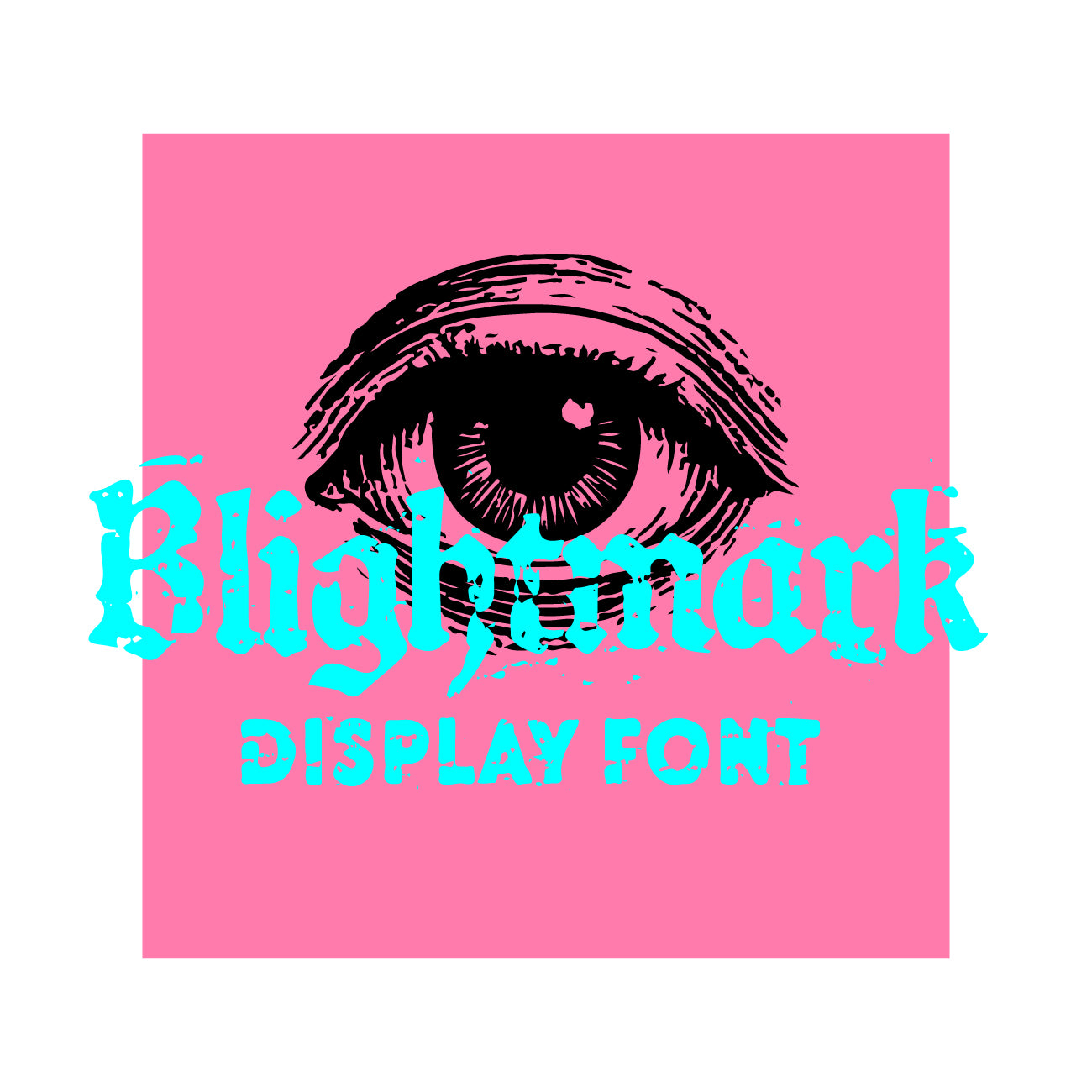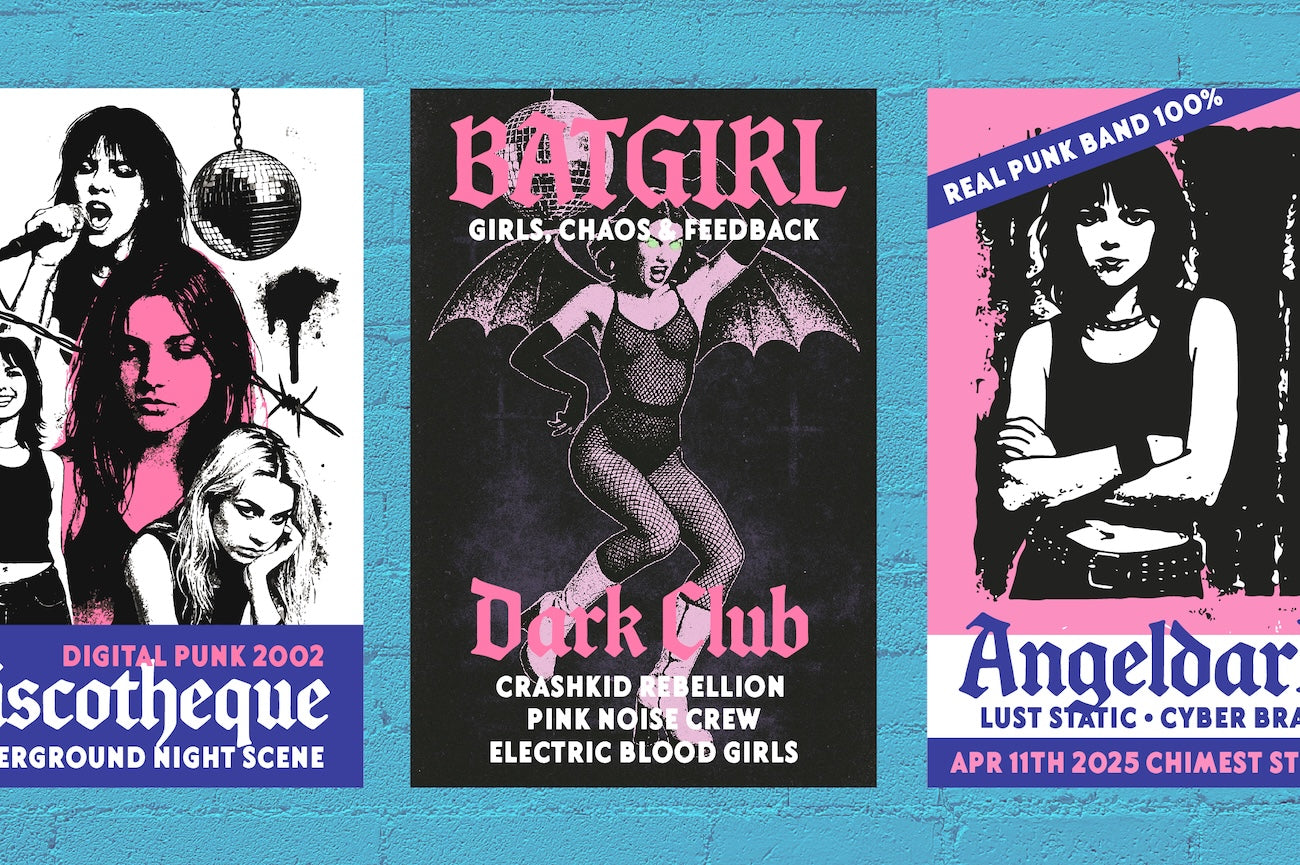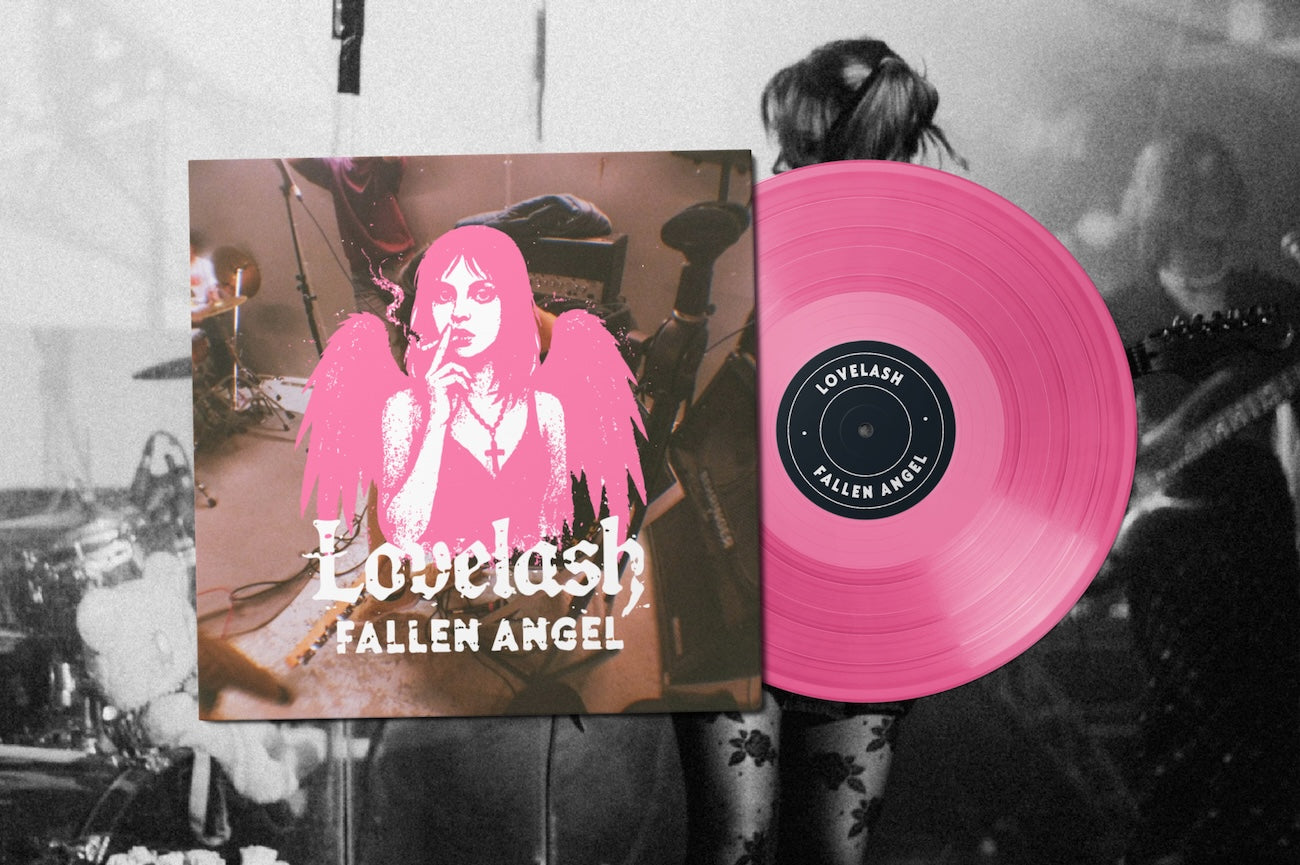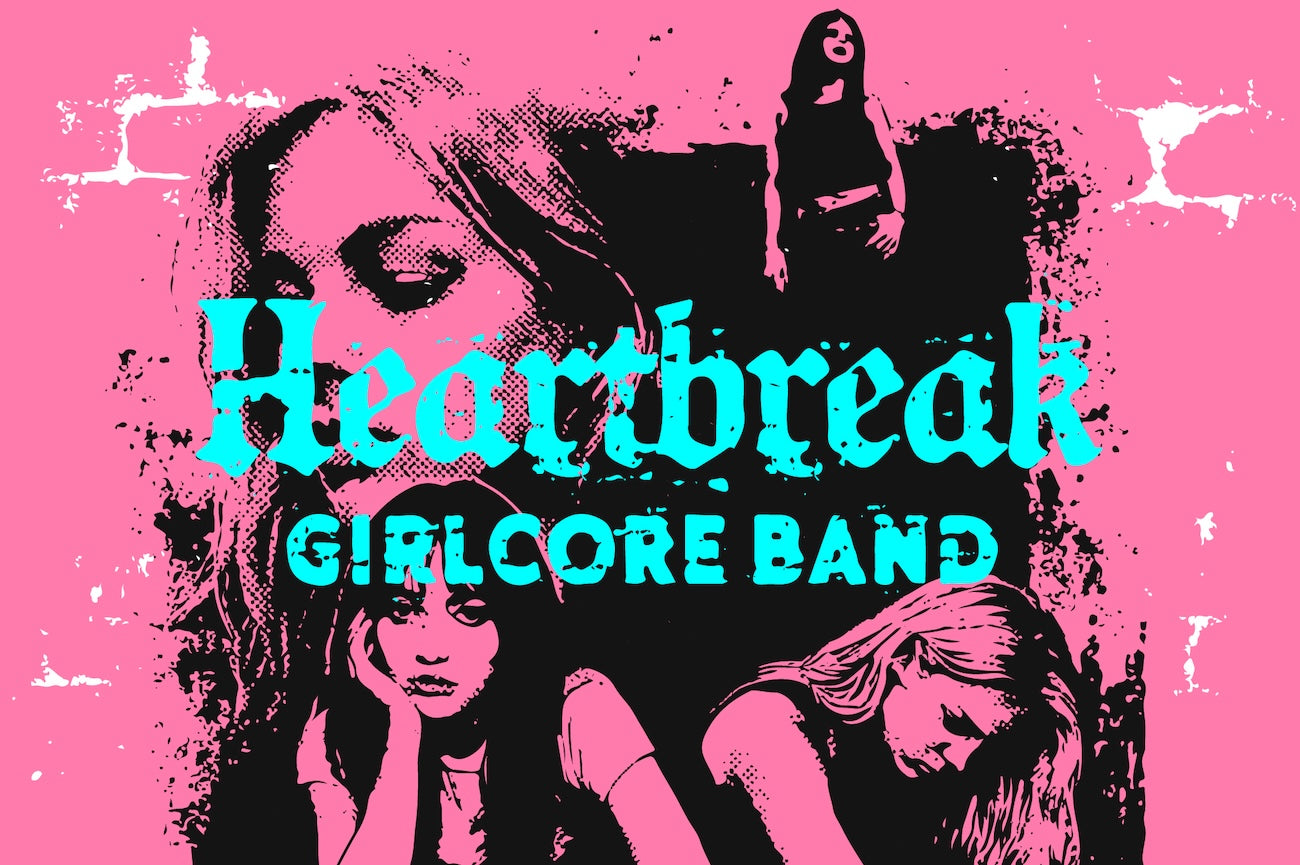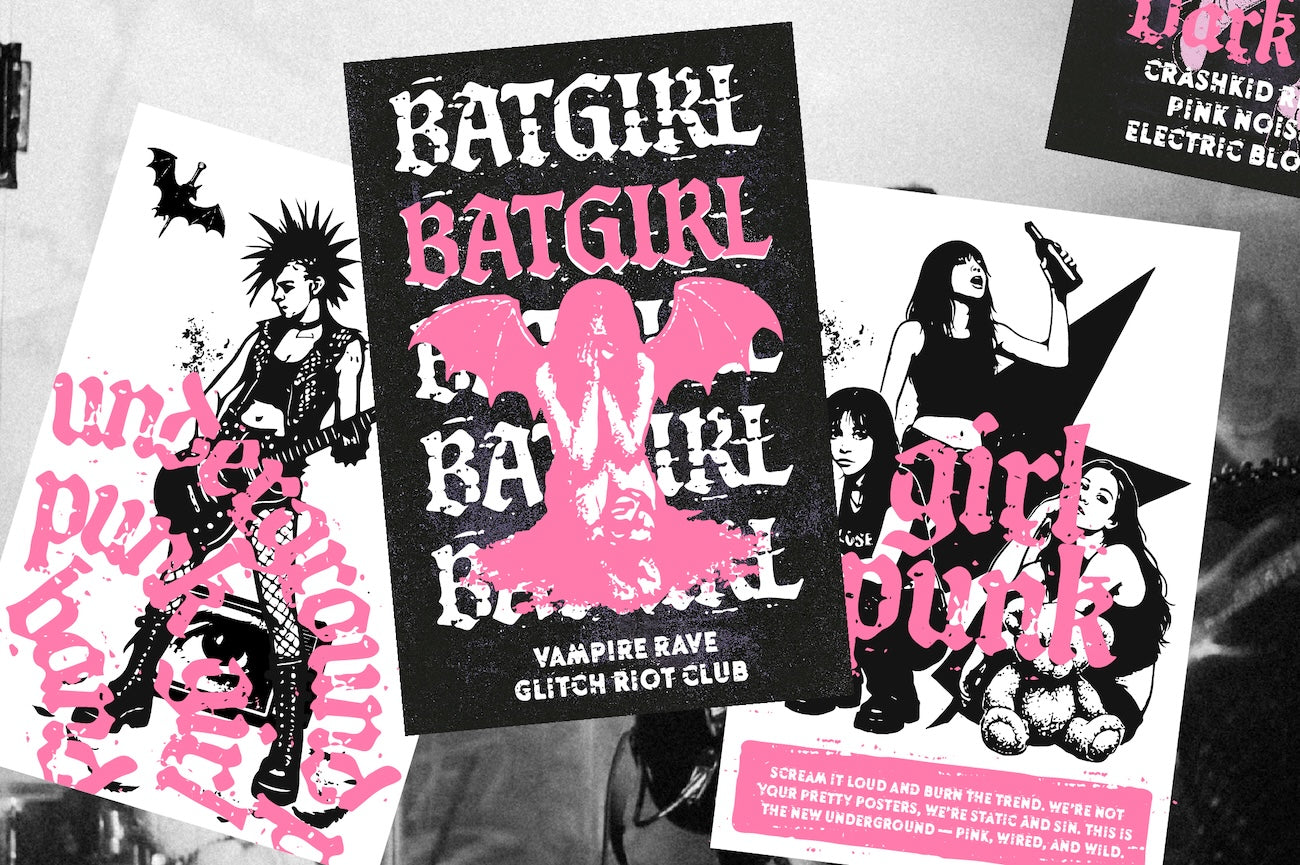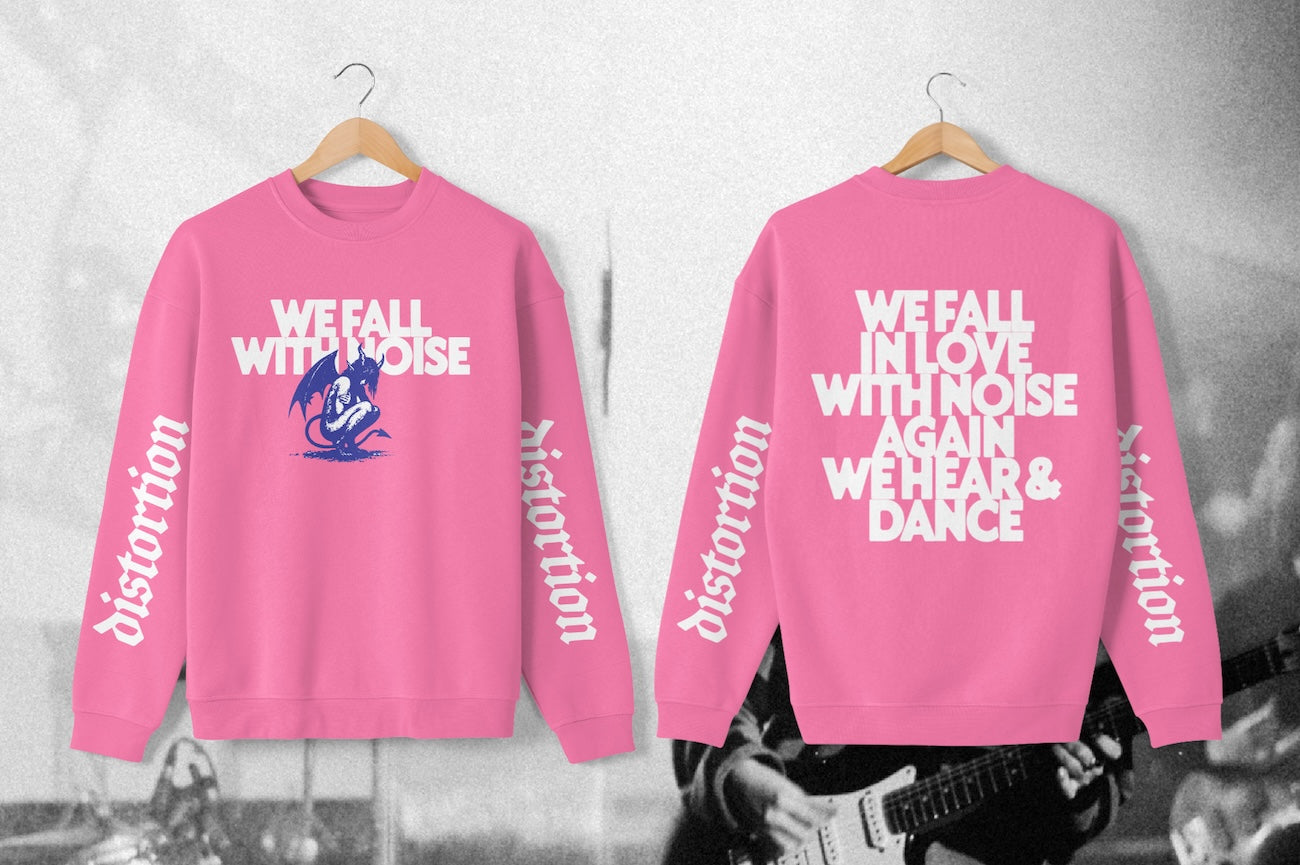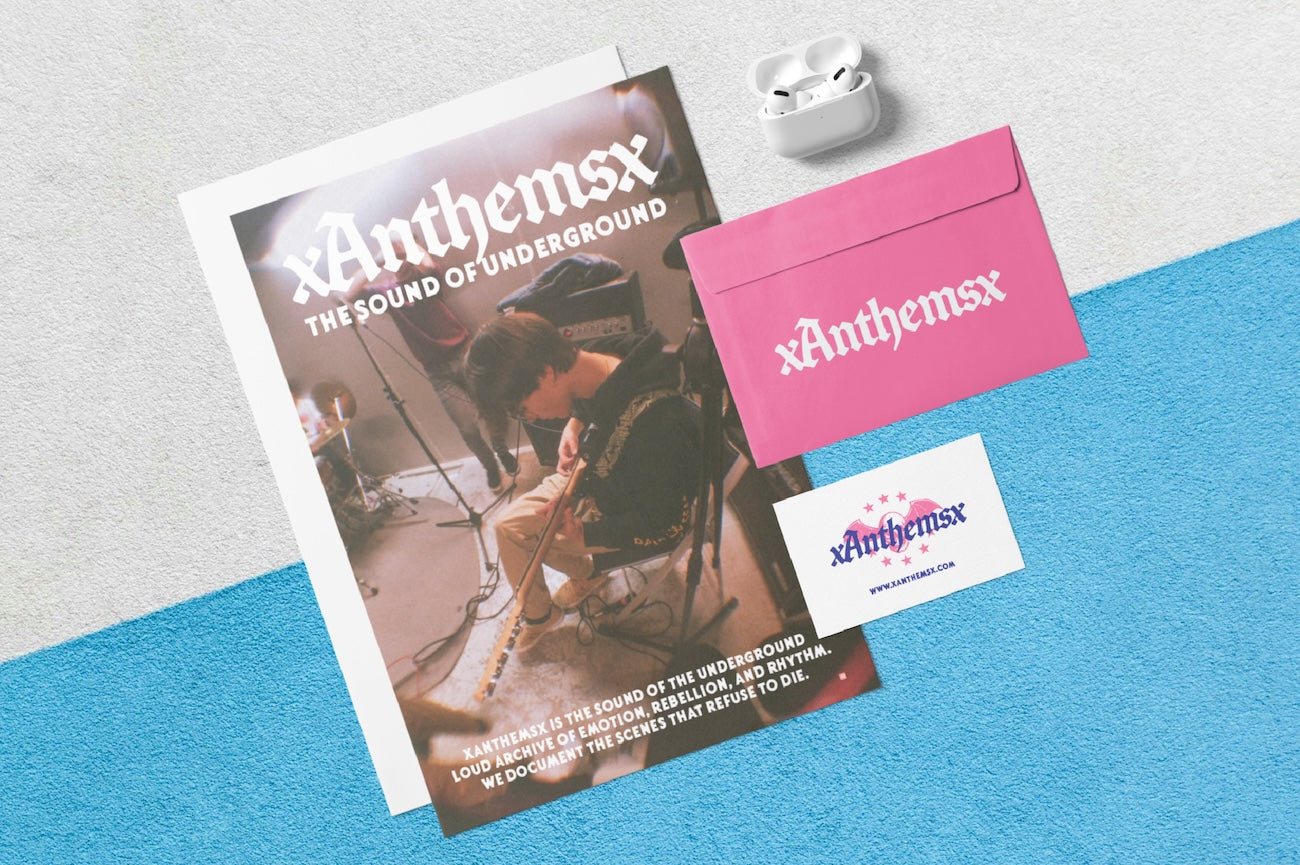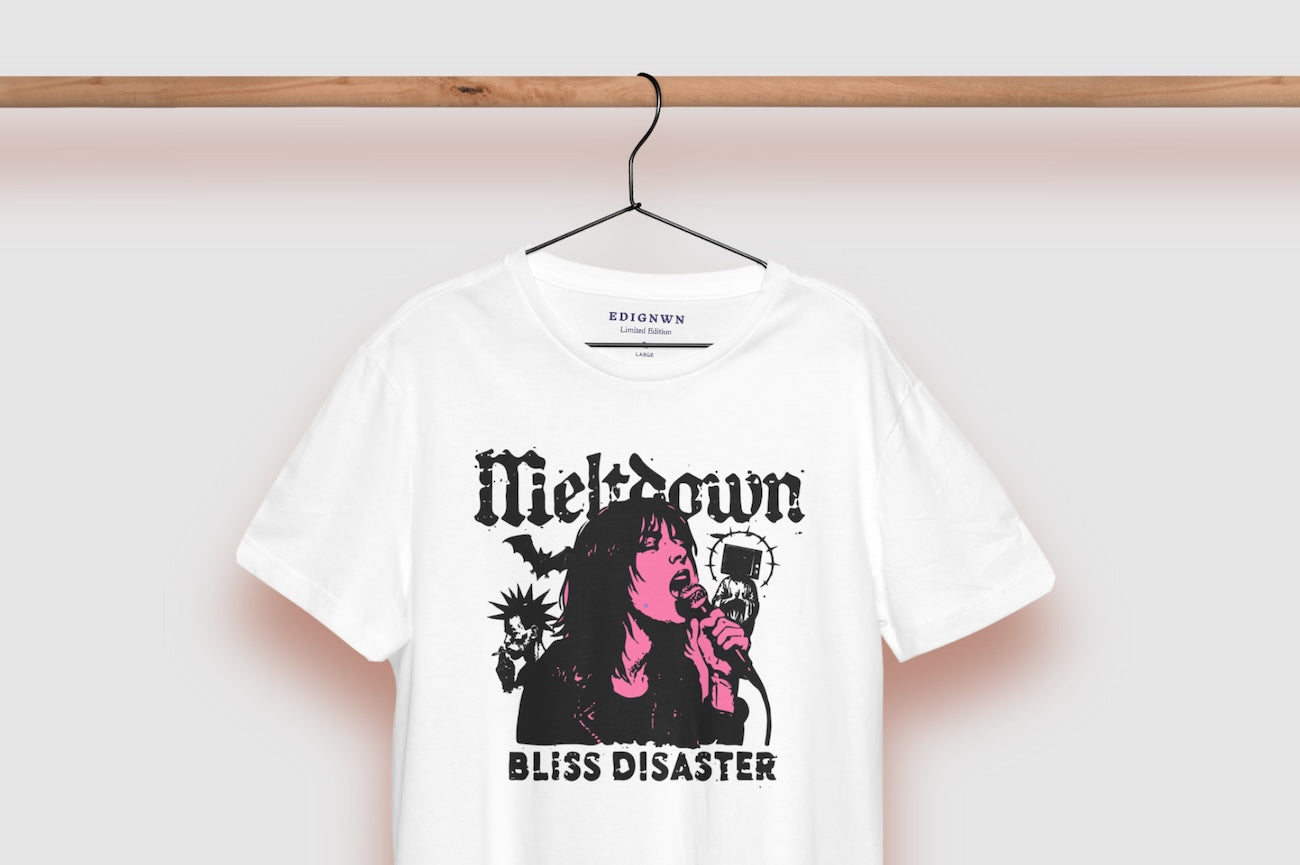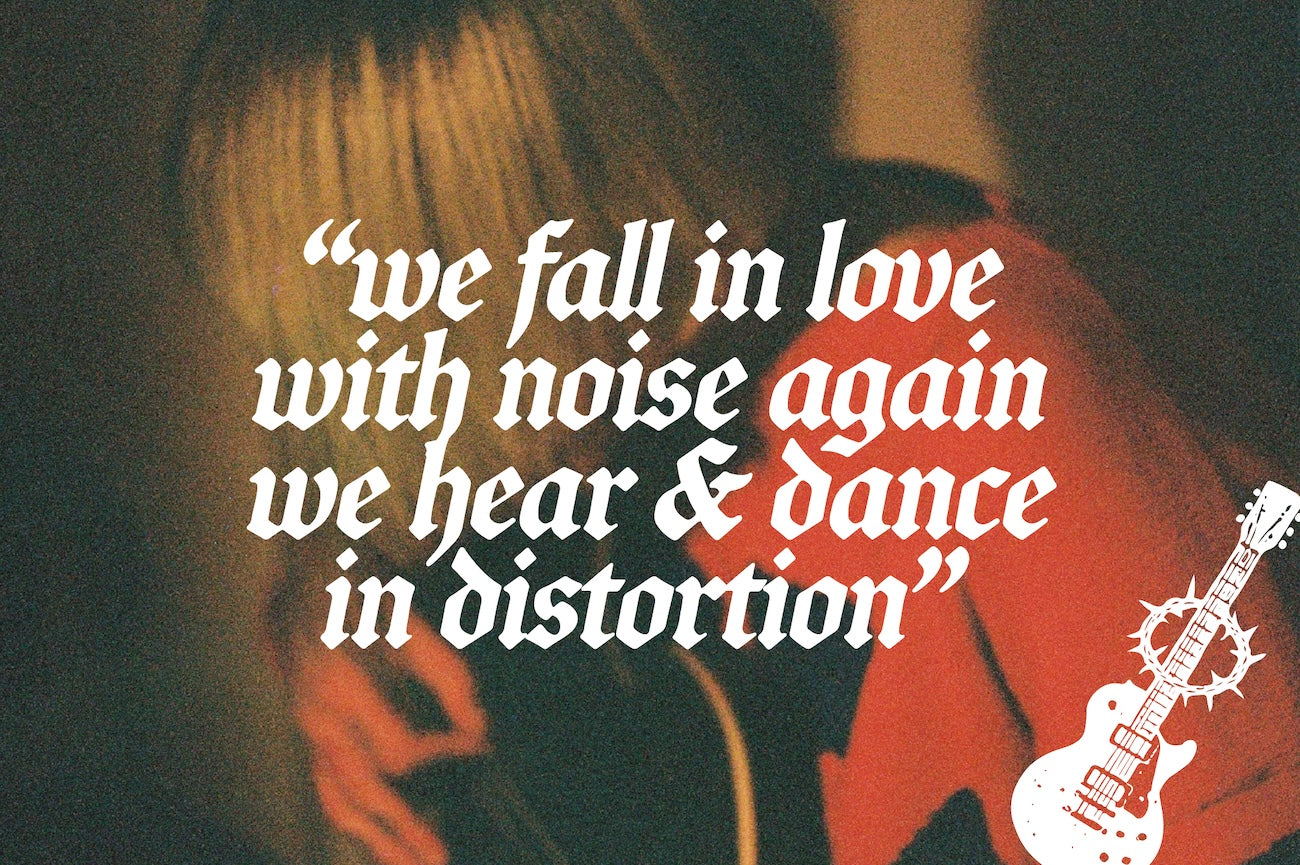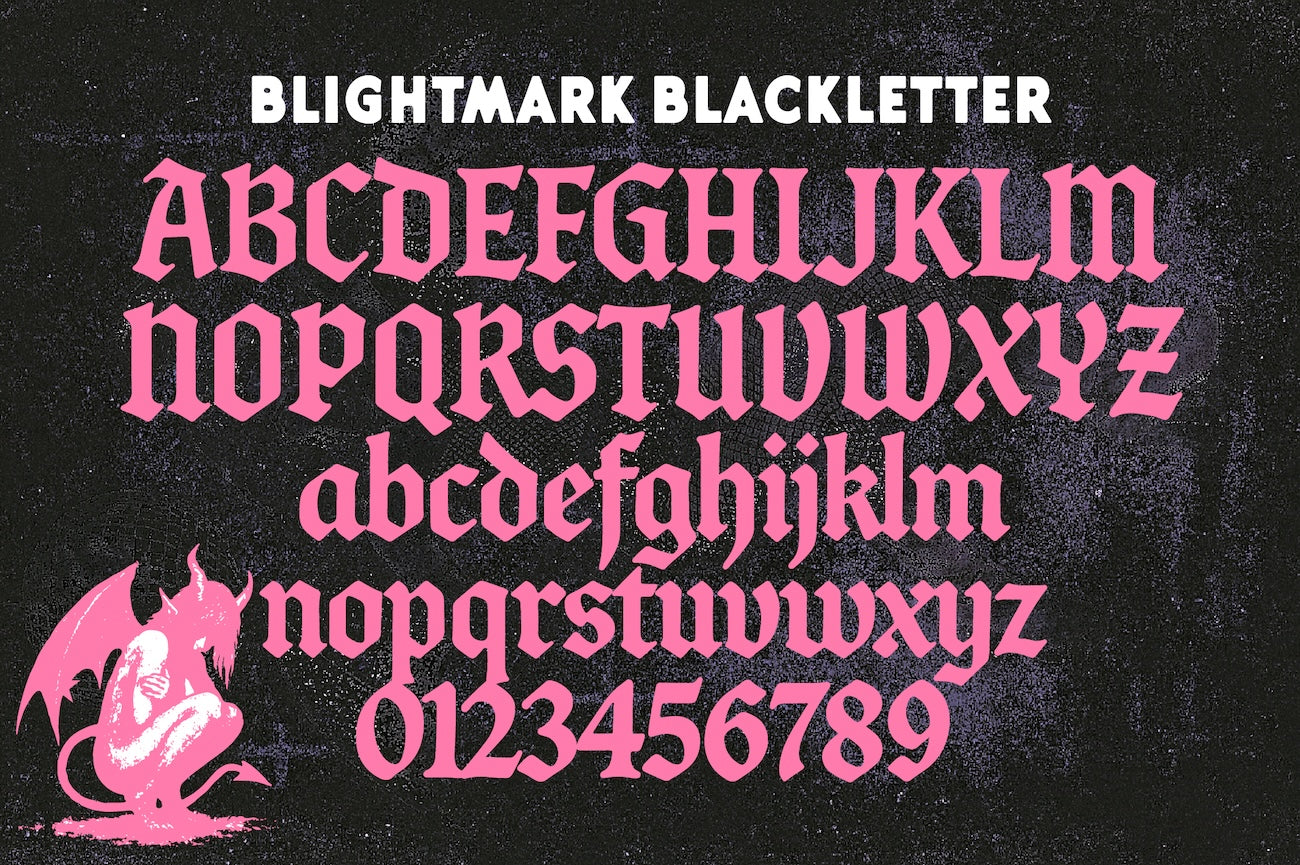
Blightmark – Display Font
Blightmark is a bold display font duo featuring three typefaces: Blackletter, Oblique, and Sans, each available in Regular and Textured styles. It includes uppercase, lowercase, numerals, symbols, and punctuation, offers multilingual support, and is PUA encoded for easy access.